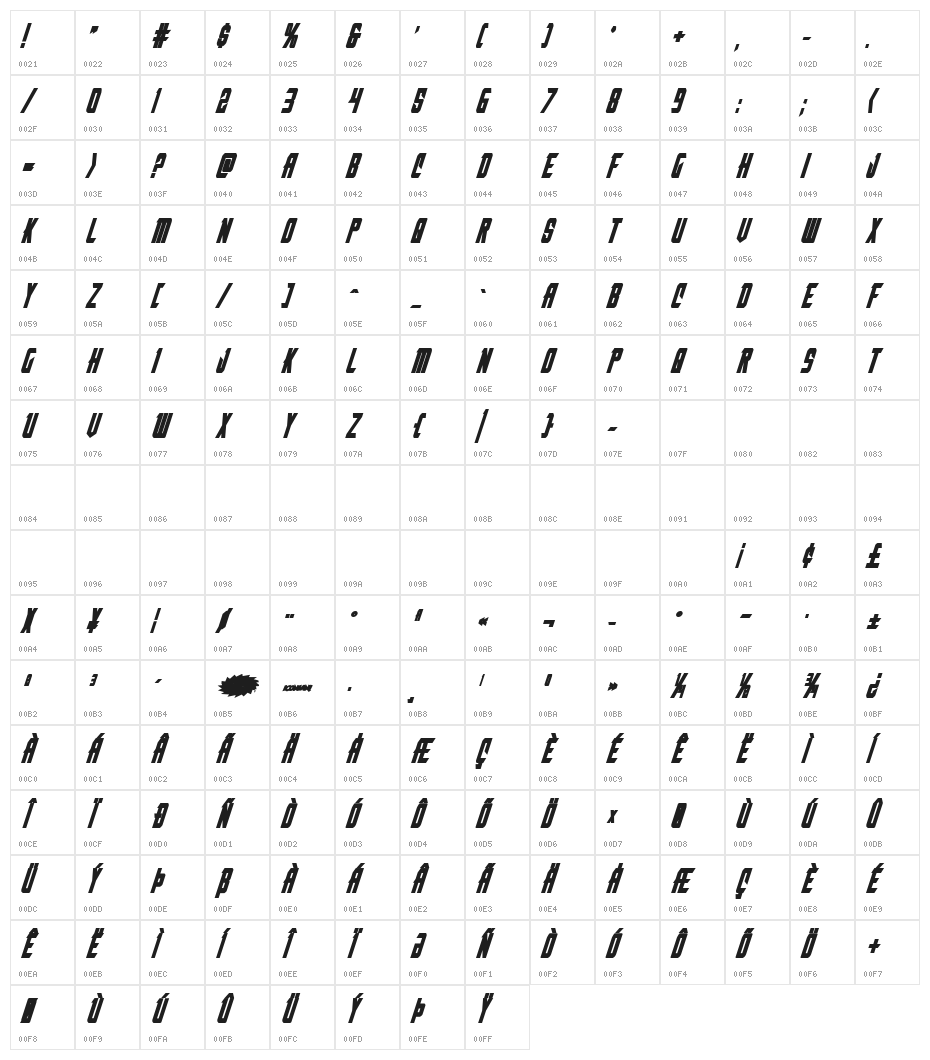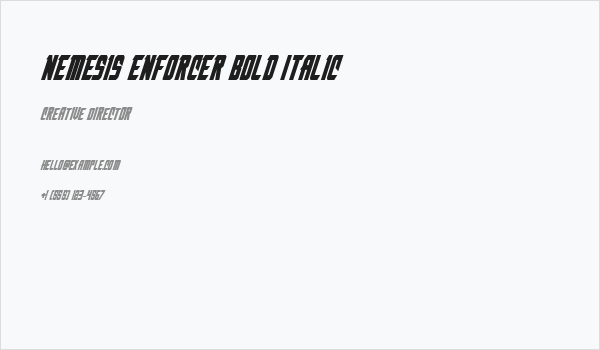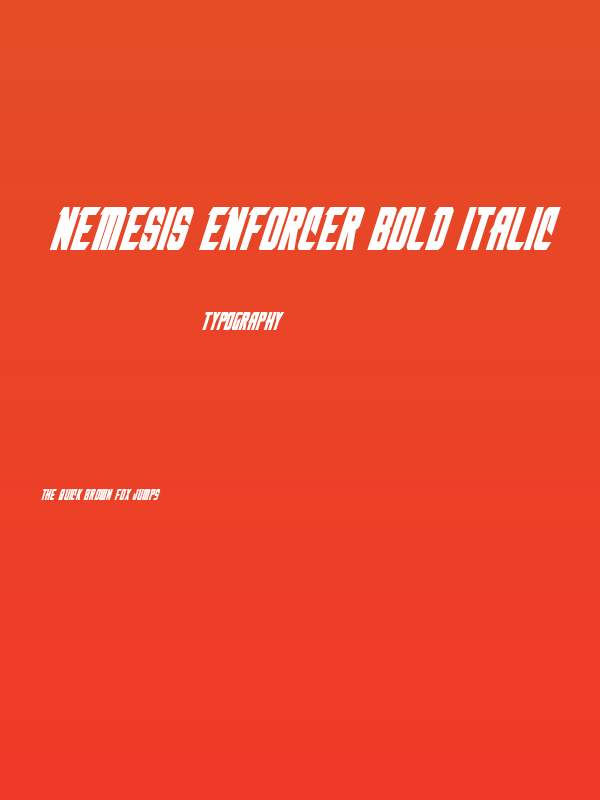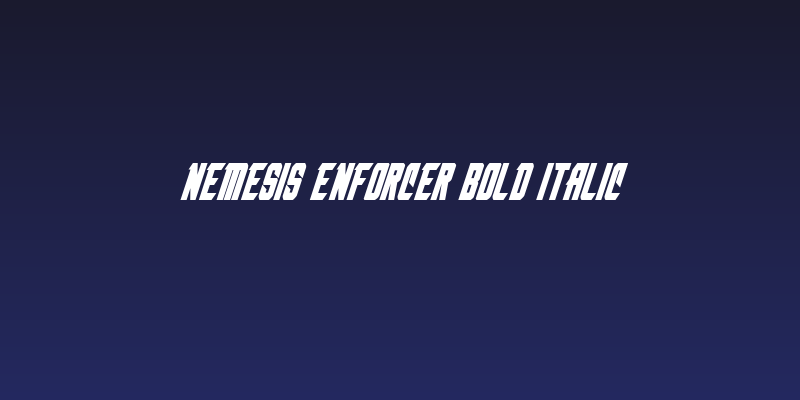
Nemesis Enforcer Bold Italic Font
Nemesis Enforcer Bold Italic Description
This font features a bold and italicized style with a strong, commanding presence. The characters are sharply angled, giving them a dynamic and aggressive look. The uppercase and lowercase letters maintain a consistent slant, enhancing the italic effect. The numbers and special characters follow the same bold and angular design, ensuring uniformity across all elements. The font's thick strokes and sharp edges make it highly legible and impactful, suitable for attention-grabbing designs.